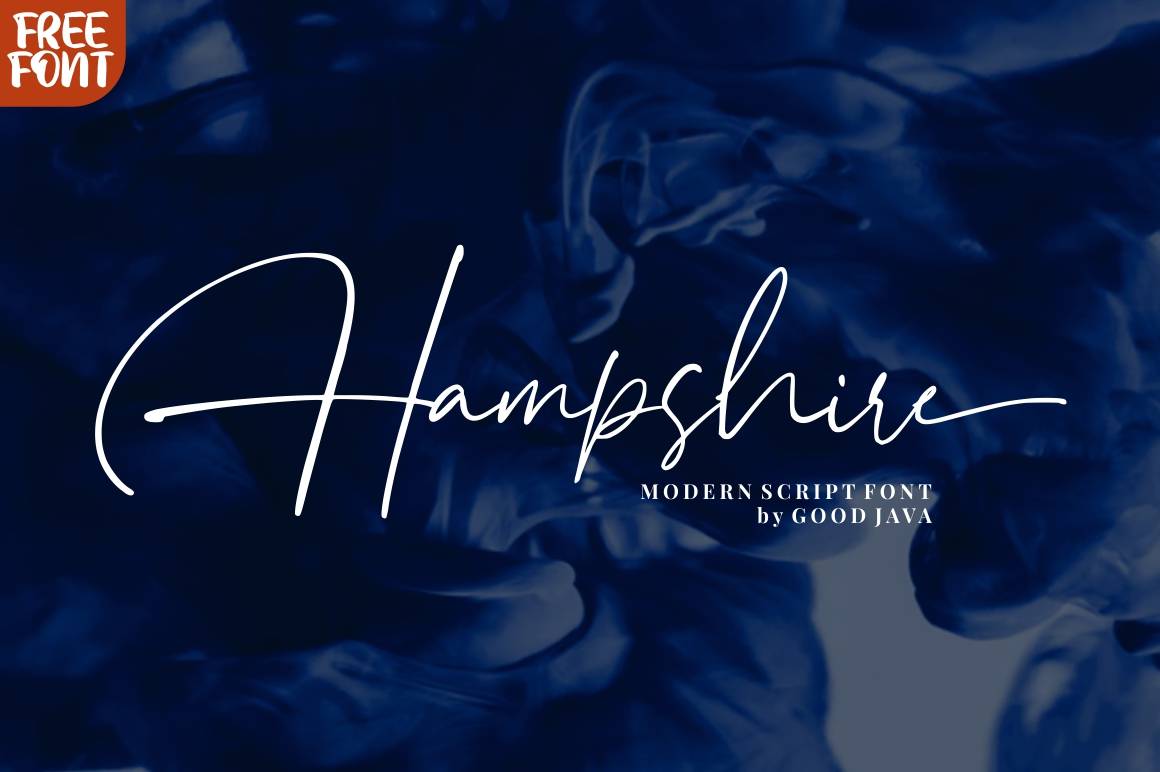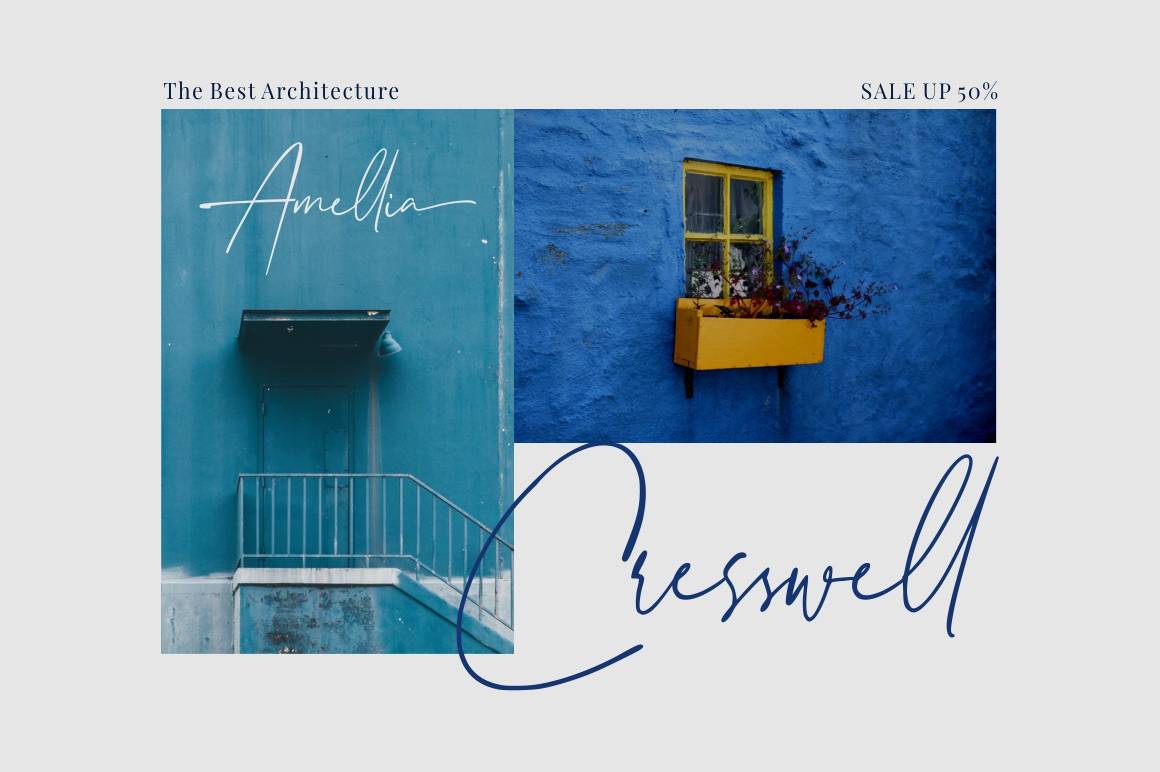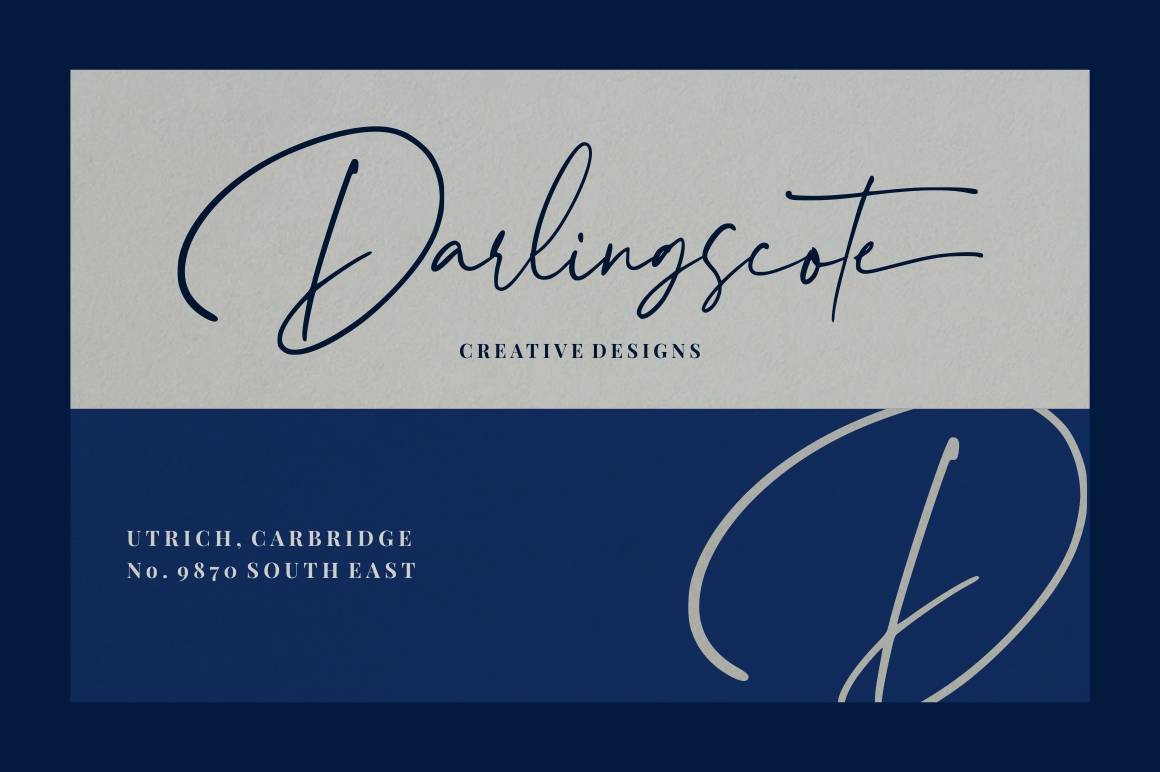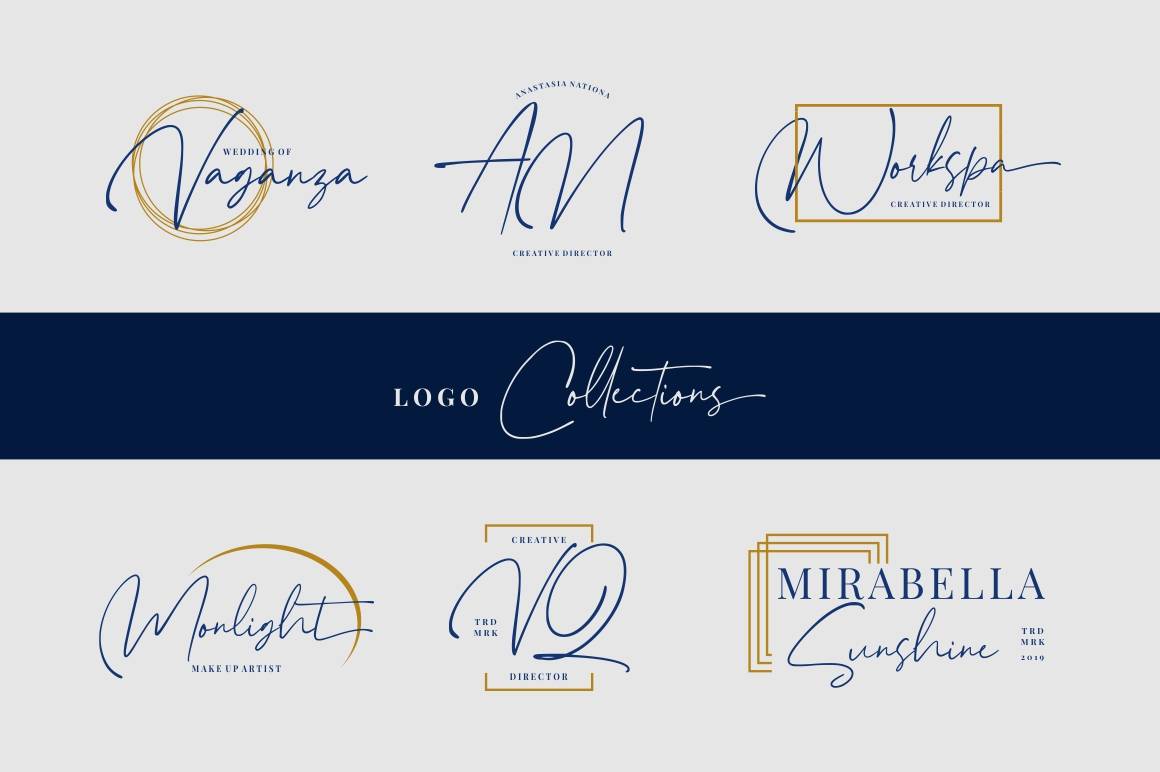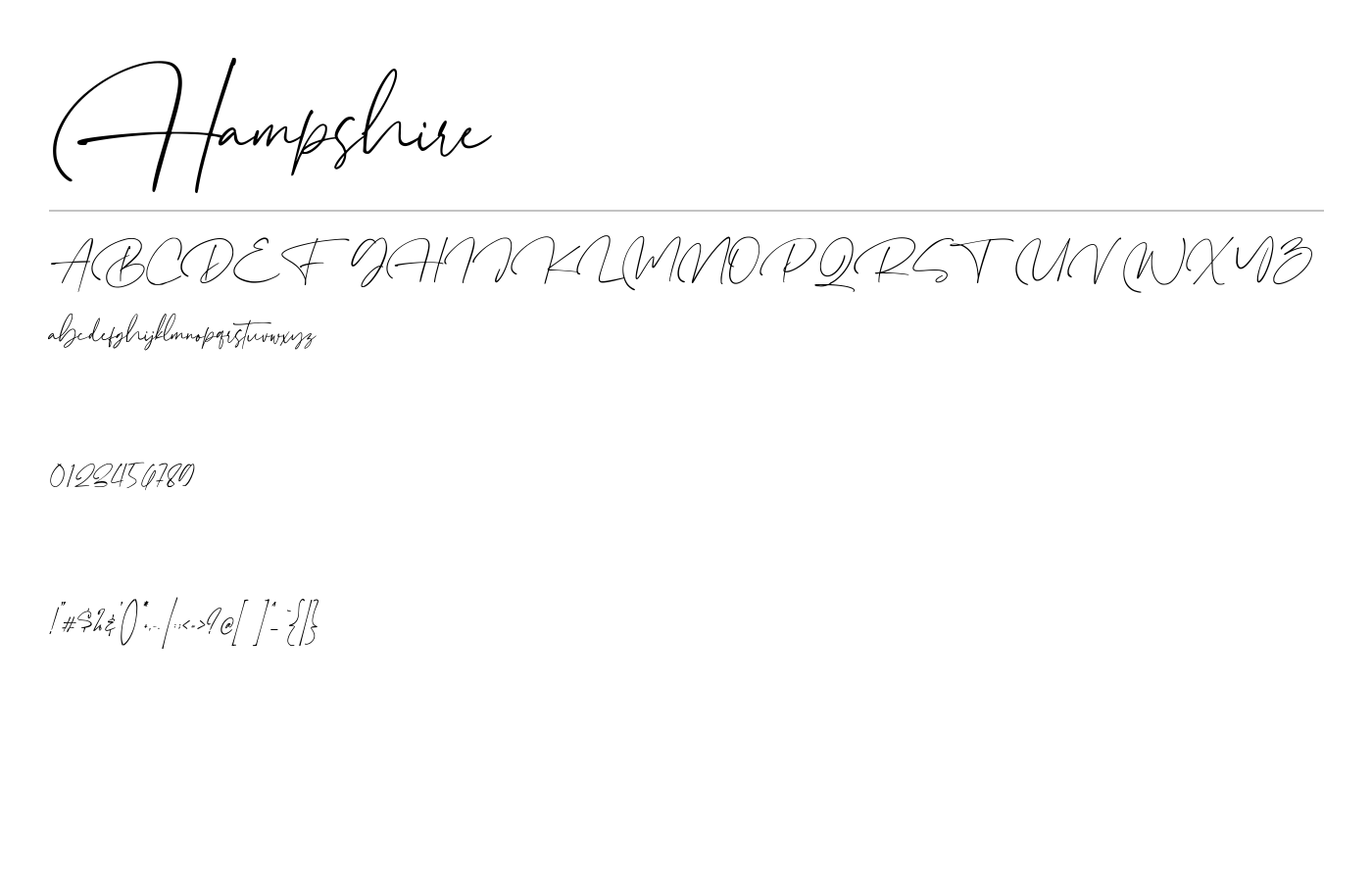
Hampshire is a delicate and elegant script font that features thin, flowing lines and a refined handwritten style. Its light weight and graceful letterforms make it perfect for creating sophisticated branding, wedding invitations, and editorial designs that require a personal yet stylish touch. This font’s airy and artisanal feel lends itself well to projects aiming to convey elegance and charm.
Hampshire Font
About Hampshire Font
| Font family | Hampshire Font |
| Release date | 2019-12-03 |
| Designer | Good Java Studio |